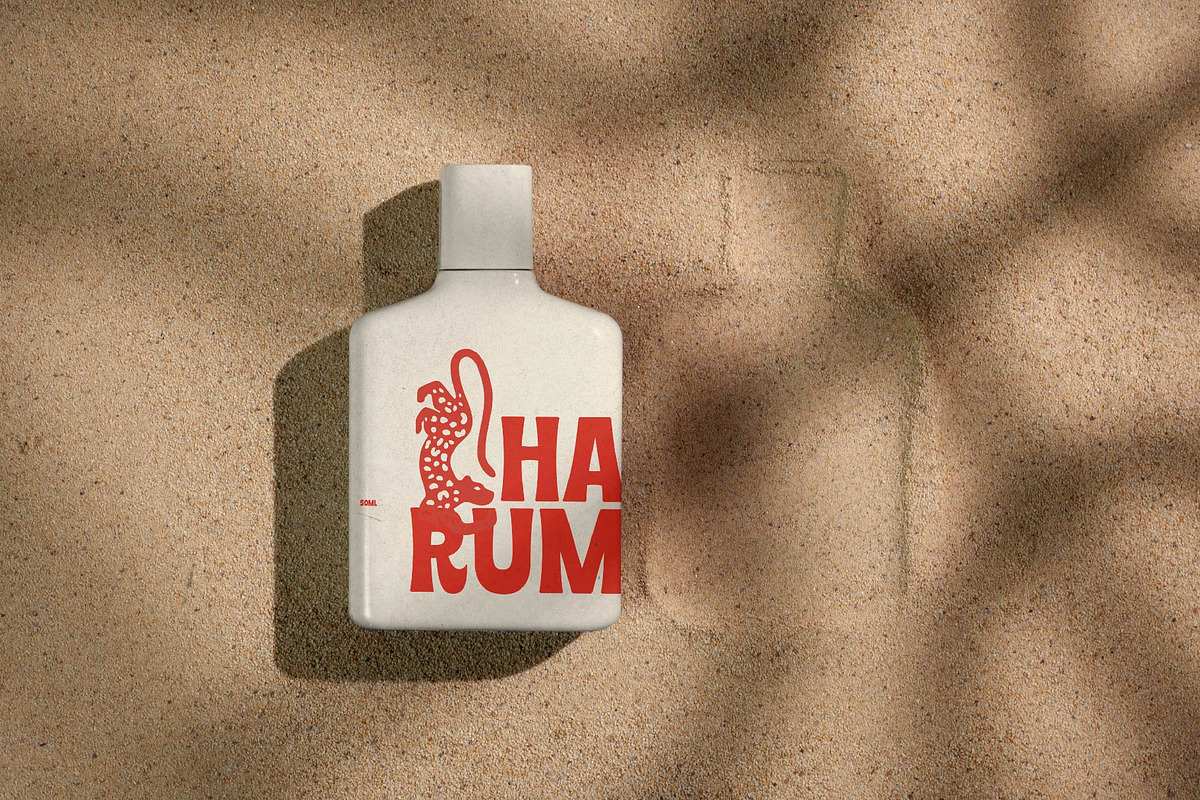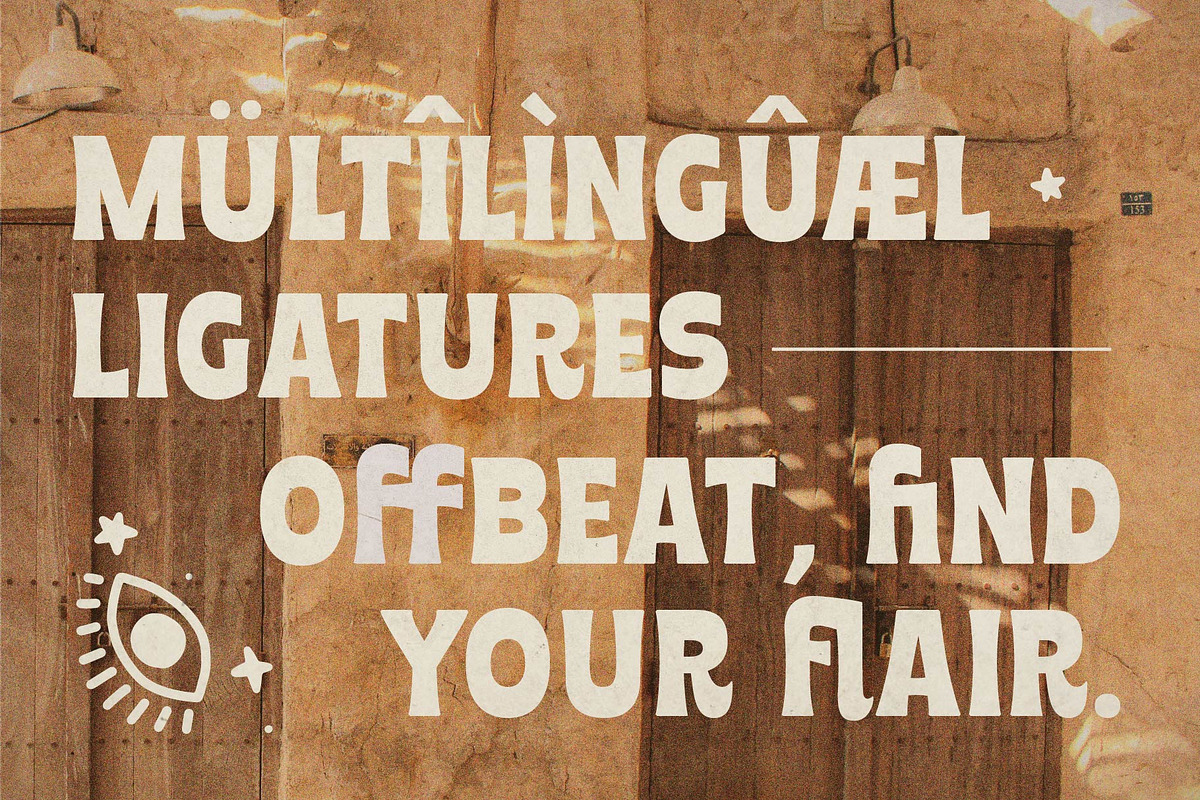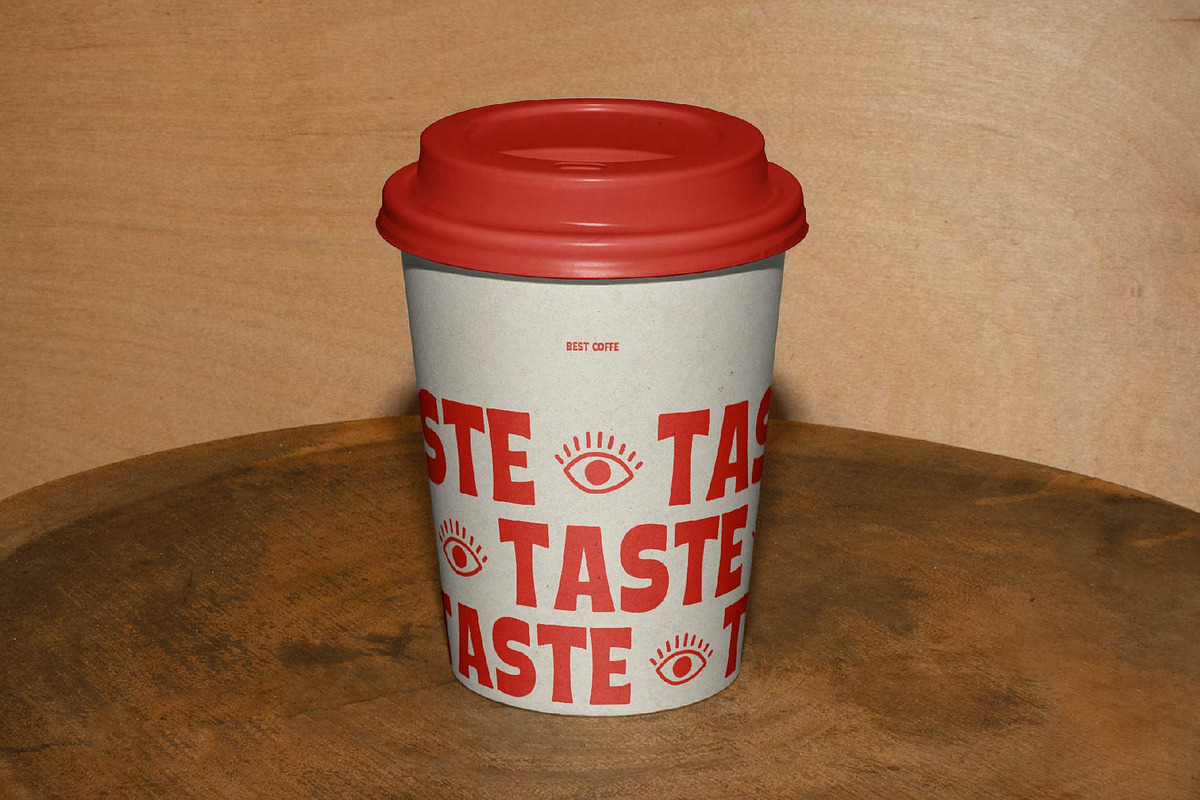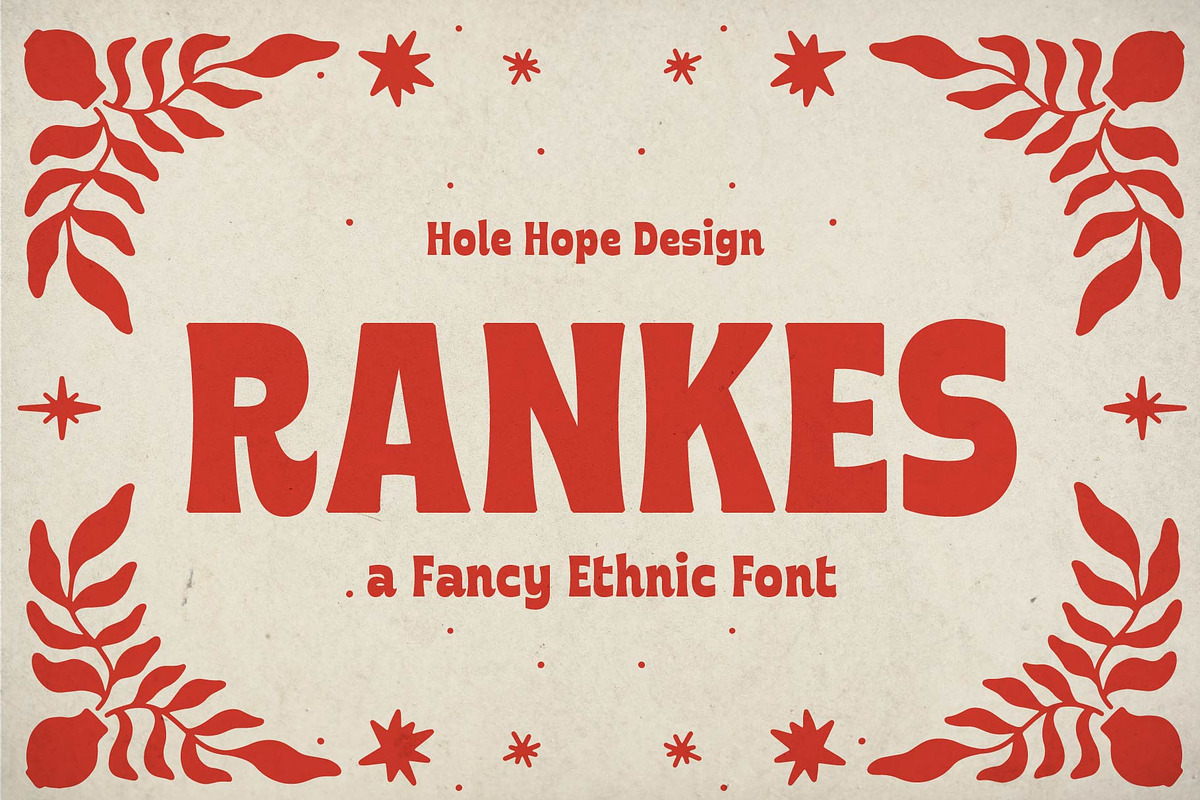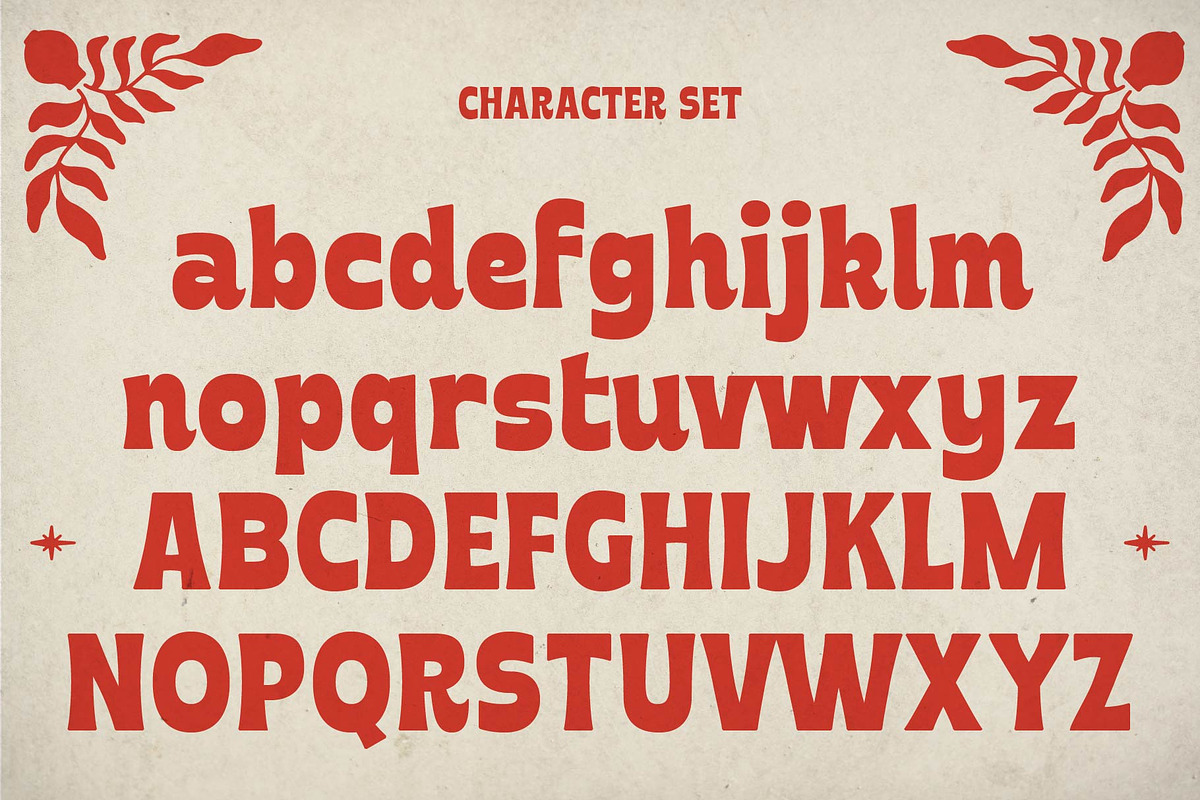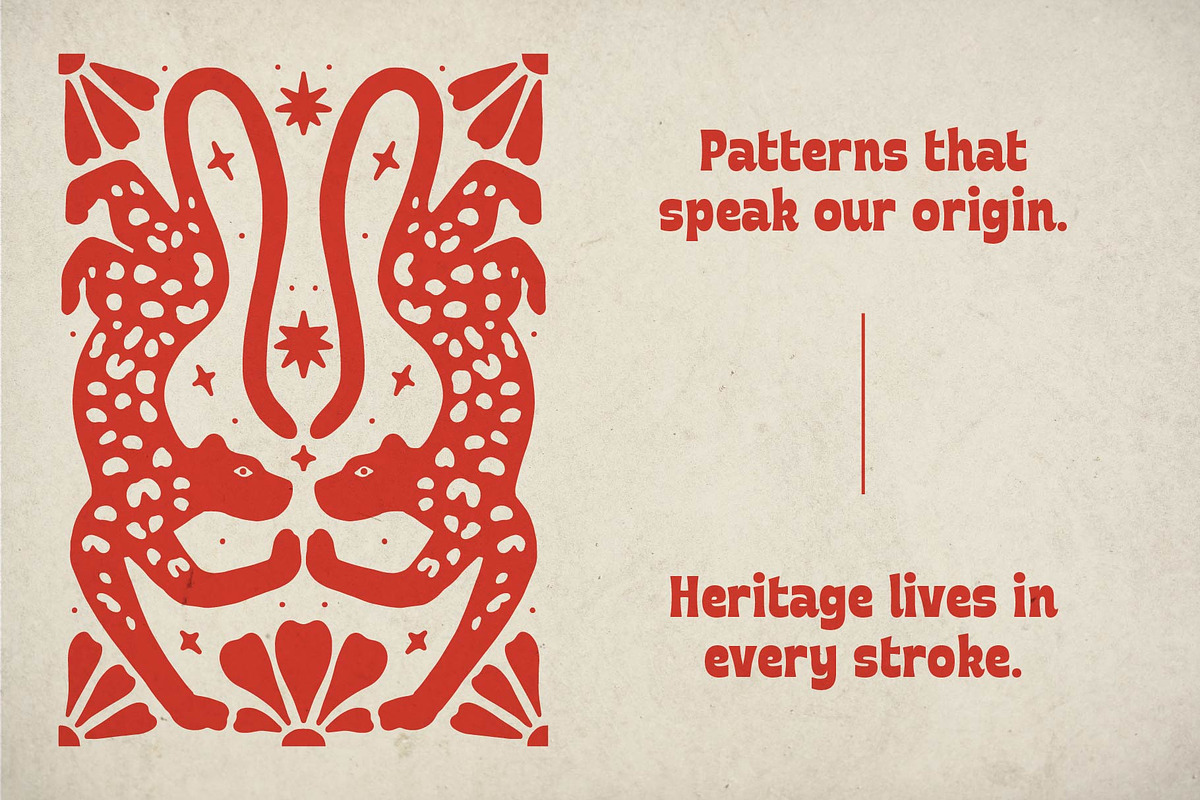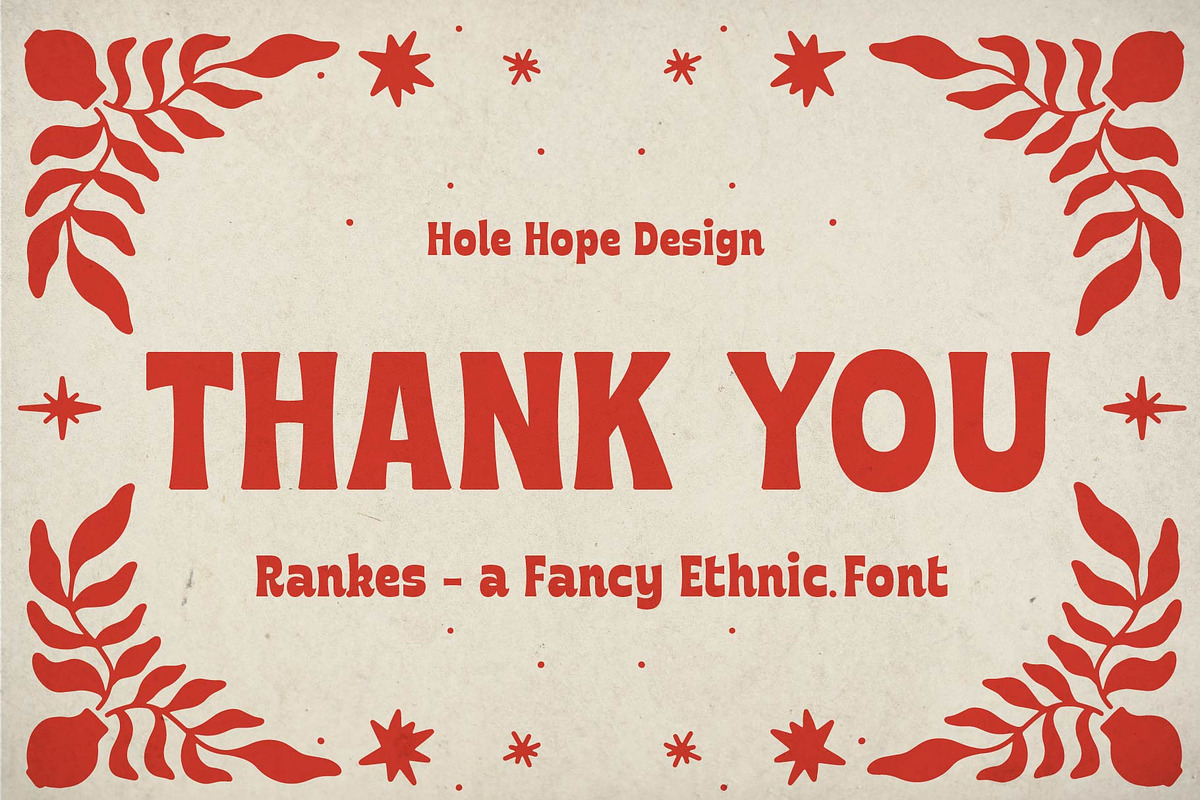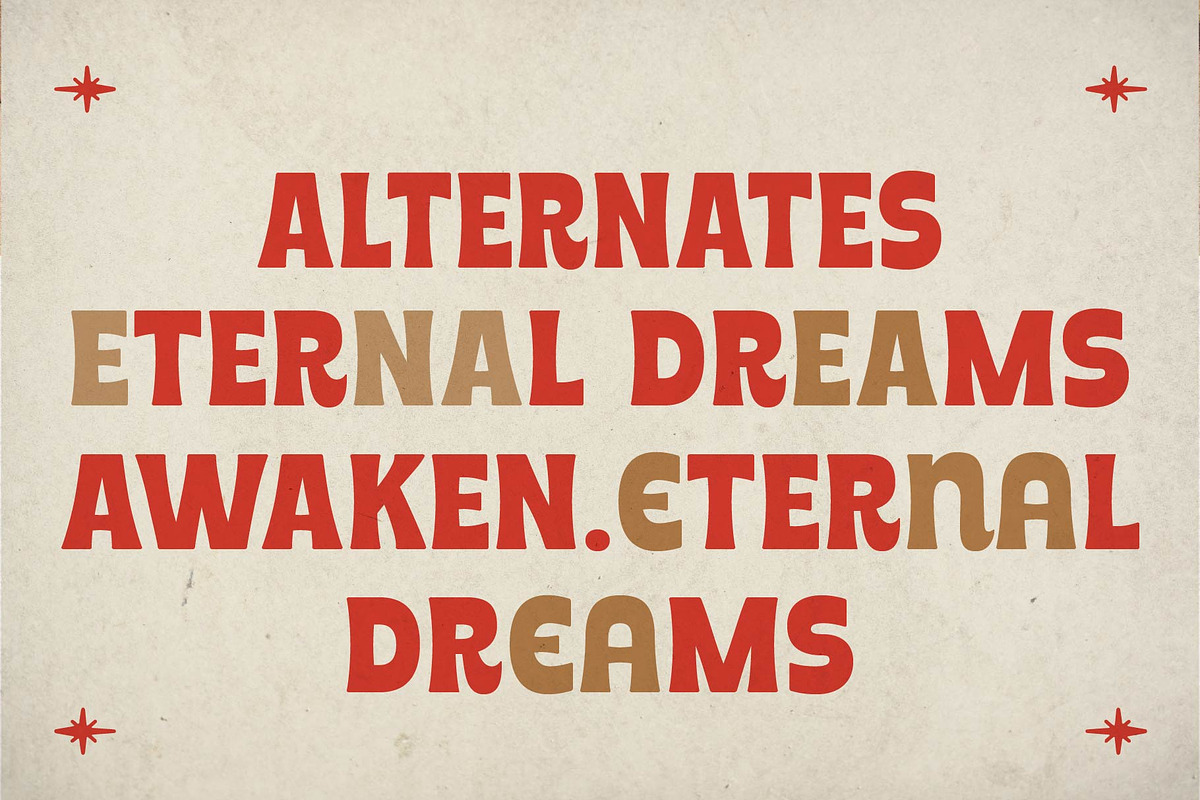
Rankes – Fancy Ethnic Font
Rankes is a charming folk-inspired display font that combines handcrafted elegance with a whimsical vintage touch. Each letter carries a unique ornamental flair, making it perfect for designs that celebrate tradition, artistry, and storytelling. With its fancy curves and rustic personality, Rankes adds a heartfelt, artisanal vibe to any project.